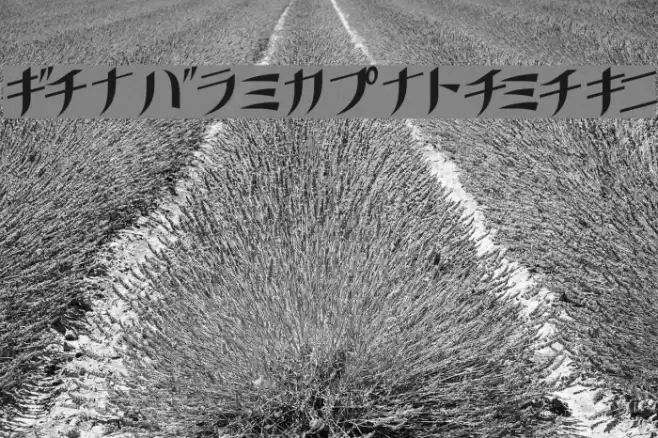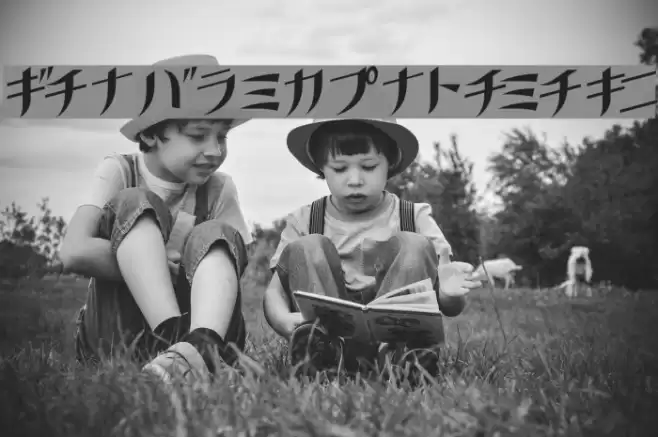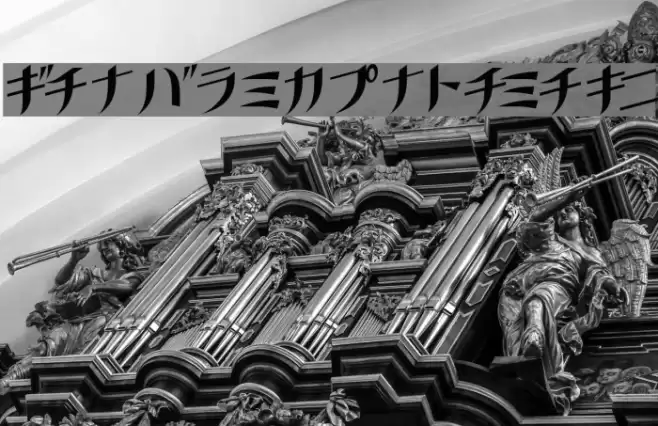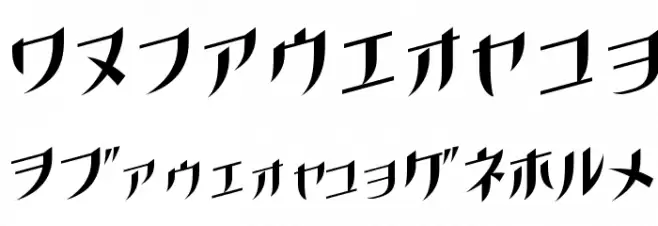
GauFontKusanagi Font
GauFontKusanagi Description
This font features a bold and dynamic style, characterized by sharp, angular strokes and a distinct sense of motion. The characters exhibit a unique blend of traditional and modern elements, with a strong emphasis on diagonal lines and pointed edges. This design creates a sense of energy and fluidity, making it ideal for projects that require a bold and impactful visual presence. The font's aesthetic is reminiscent of calligraphic styles, yet it maintains a contemporary edge, suitable for a variety of creative applications.
A bold, dynamic font with sharp, angular strokes and a modern calligraphic style from Uncategorized fonts.